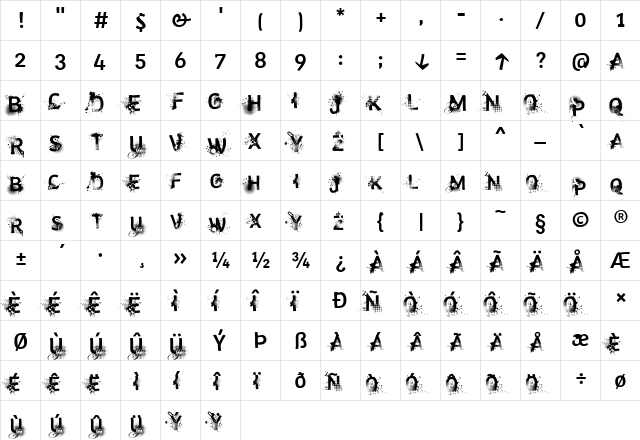
trashco Regular
Design Context for trashco Typeface
trashco is a composed and adaptable typeface that performs quietly and consistently across a wide range of design contexts.